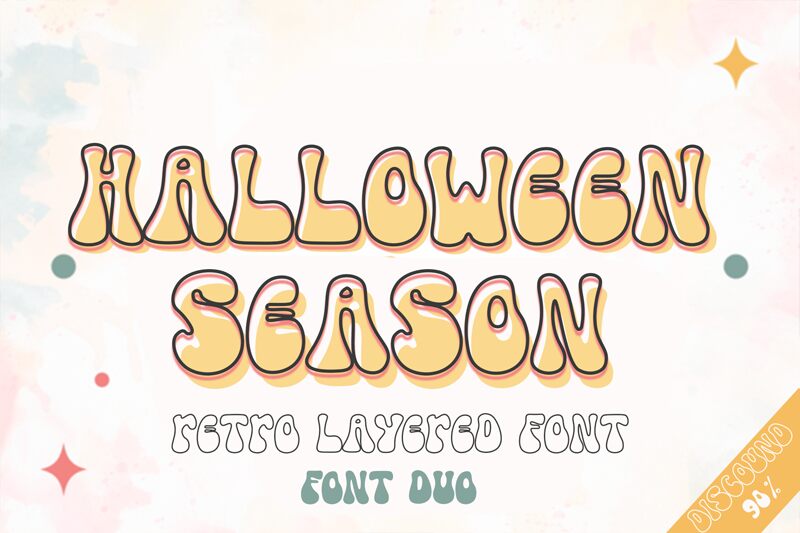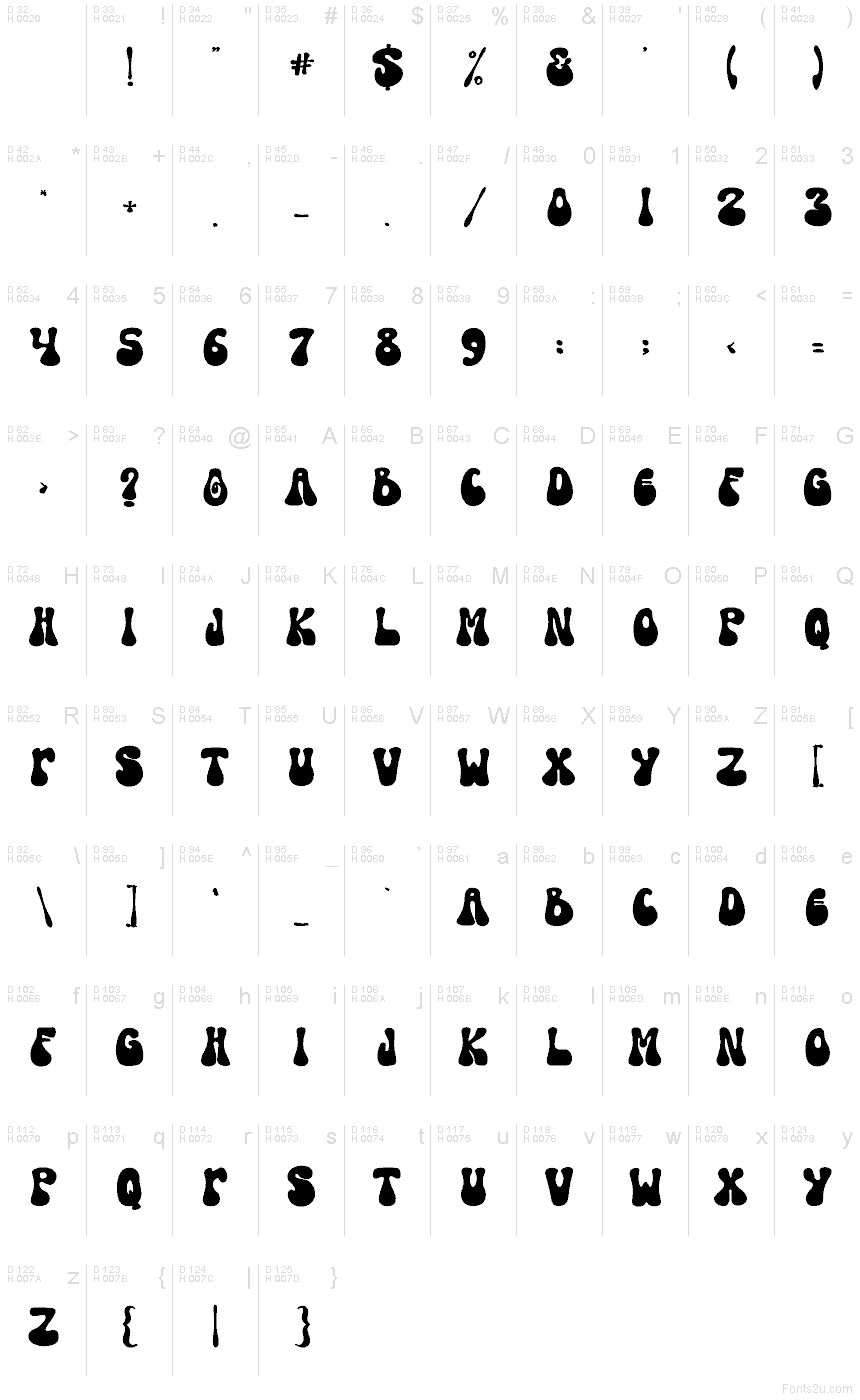
Halloween Season
Halloween Season font by Creatype Designer is a free bold groovy display font. Built with gooey, bulbous strokes and soft, rounded edges, it oozes a playful creepiness—think inky puddles meeting retro surf-rock posters. The rhythm feels bouncy and tight, with plump forms and snug spacing that keep headlines cohesive while still looking delightfully squishy.
Using Halloween Season, your titles snap to attention on event posters, party invitations, candy packaging, haunted house signage, social posts, YouTube thumbnails, and stickers. This free font shines when set large with a touch of extra tracking. Pair it with a clean condensed sans to handle dates, prices, or smaller details without stealing the spotlight.